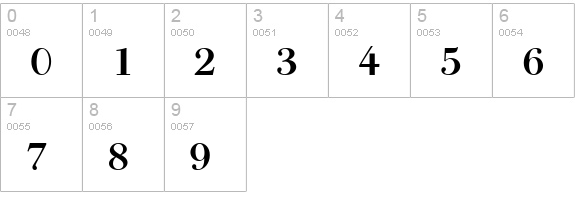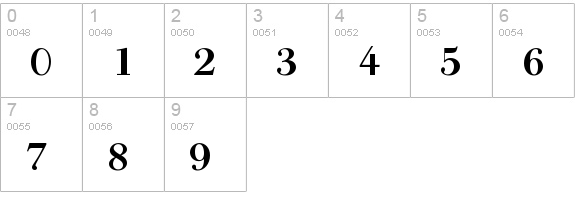
Bodoni Old Face BE Medium is a balanced, medium-weight variant in the Bodoni typeface family \xE2\x80\x94 well suited to sub-headlines, navigation, and balanced editorial work.
Bodoni Old Face BE Medium font is a timeless and elegant typeface that exudes sophistication and class. Its graceful and delicate letterforms make it perfect for a wide range of design projects, from elegant invitations to high-end branding materials. The font's classic serifs and clean lines give it a sense of refinement and luxury. The Bodoni Old Face BE Medium font is versatile and can be used in both print and digital designs. Its medium weight strikes the perfect balance between readability and impact, making it ideal for headlines, titles, and body text alike. Whether you're designing a wedding invitation or crafting a logo for a luxury brand, this font is sure to elevate your project to the next level. Best of all, Bodoni Old Face BE Medium font is completely free to download at FontsMarket.com. This means you can add this sophisticated typeface to your design arsenal without breaking the bank. Don't miss out on the opportunity to enhance your projects with the timeless beauty of Bodoni Old Face BE Medium font - download it today and see the difference it can make!